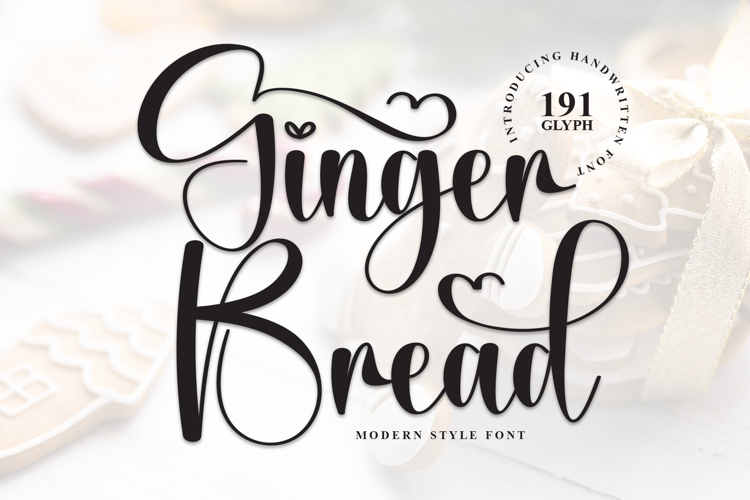
Ginger Bread - Stylish Script Font
Ginger Bread is a Sweet calligraphy font perfect for crafting, branding, invitation, stationery, wedding designs, social media posts, advertisements, product packaging, product designs, label, Posters, photography, special events, or anything.
Ginger Bread comes with a full set of uppercase and lowercase letters, ligatures, multilingual symbols, numerals, punctuation, Ss01 and Swash.